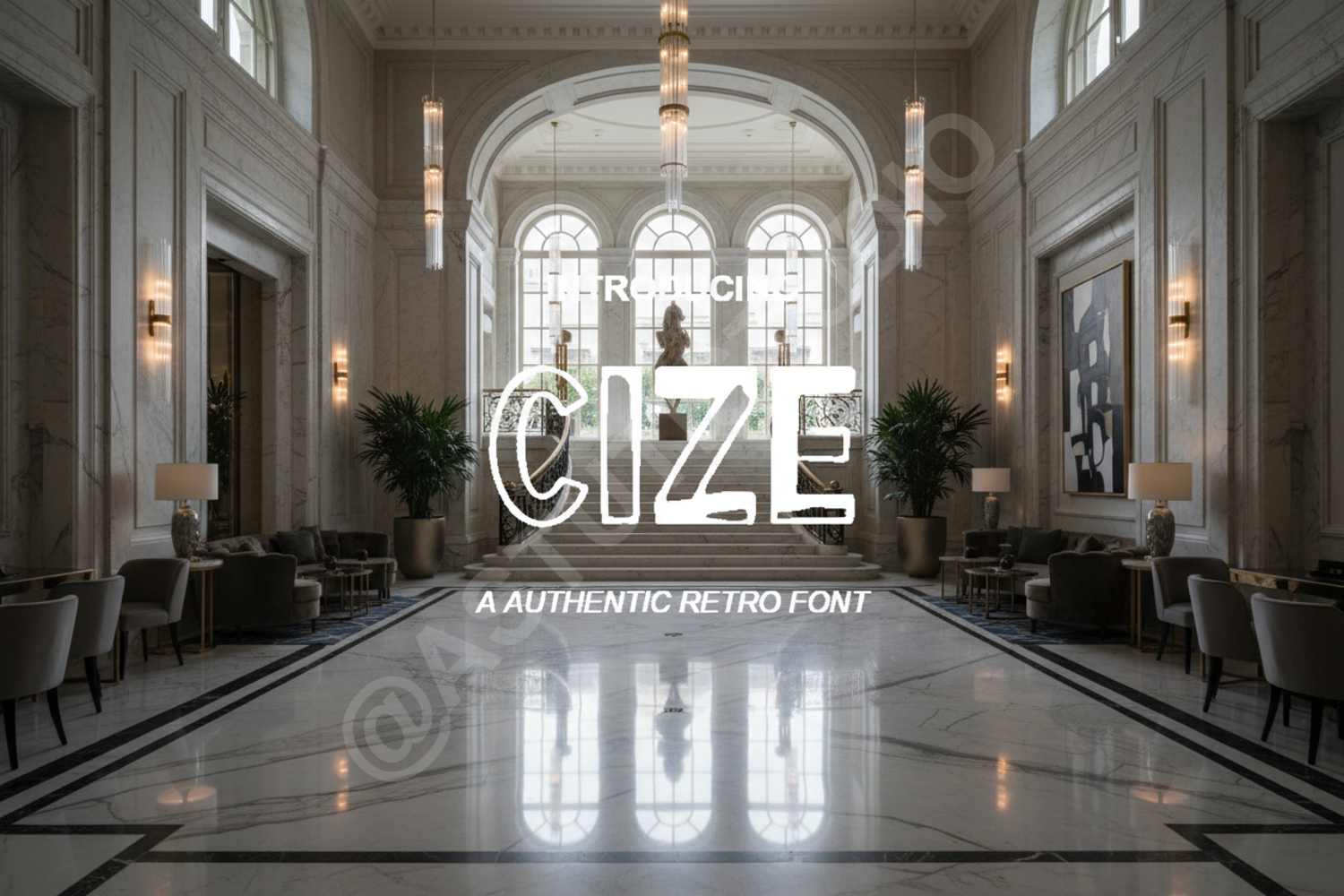
Cize - Modern Minimalist Sans Serif Typeface
Cize
Cize is a premium, high-end sans serif typeface designed for ultimate versatility and modern elegance. With its clean lines and balanced proportions, Cize offers a sophisticated aesthetic that elevates any creative project. Whether you are building a brand from scratch or designing a high-end magazine layout, this font provides the clarity and style required for professional results. Its timeless design ensures that your work remains contemporary and impactful.
- Full Character Set (Uppercase and Lowercase)
- Numbers and Punctuation
- Multilingual Support for global accessibility